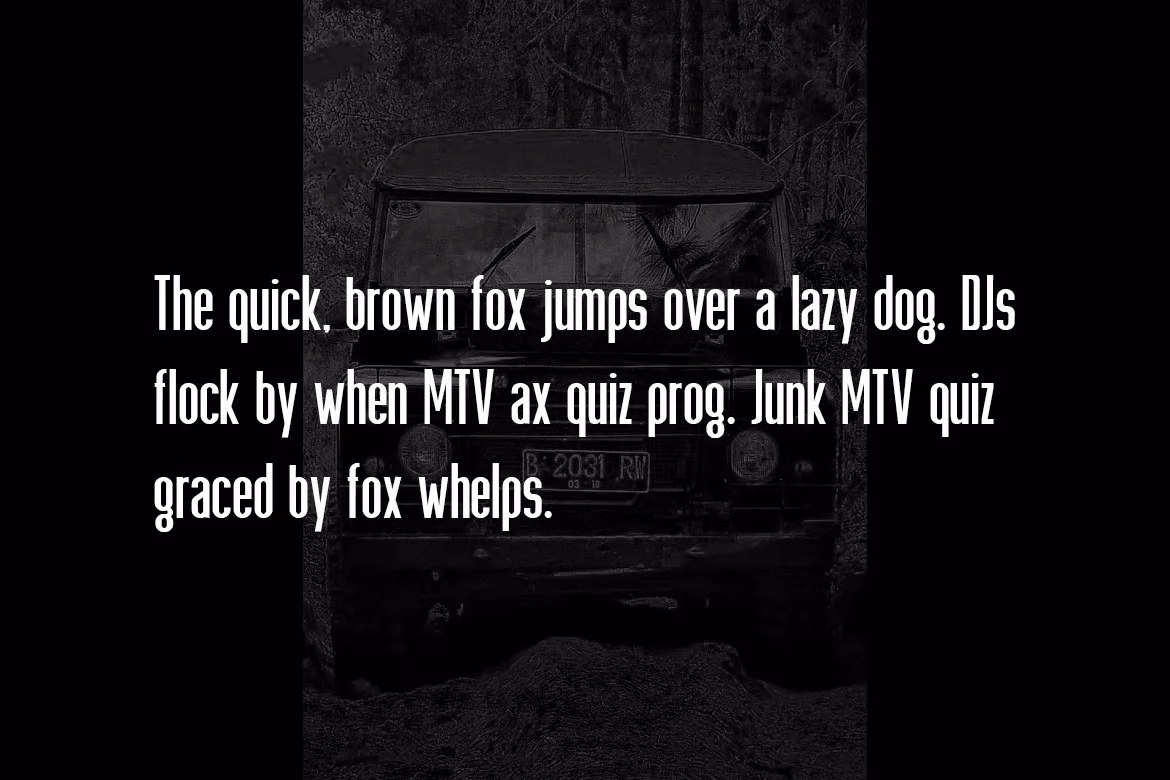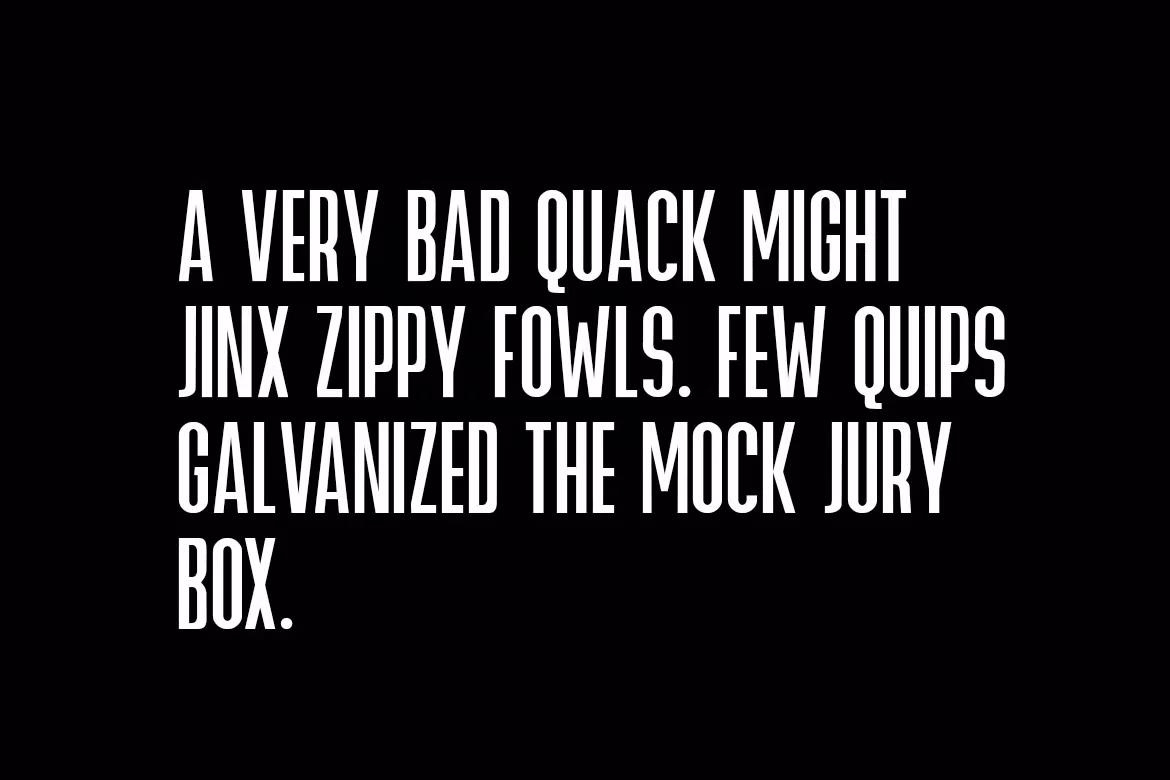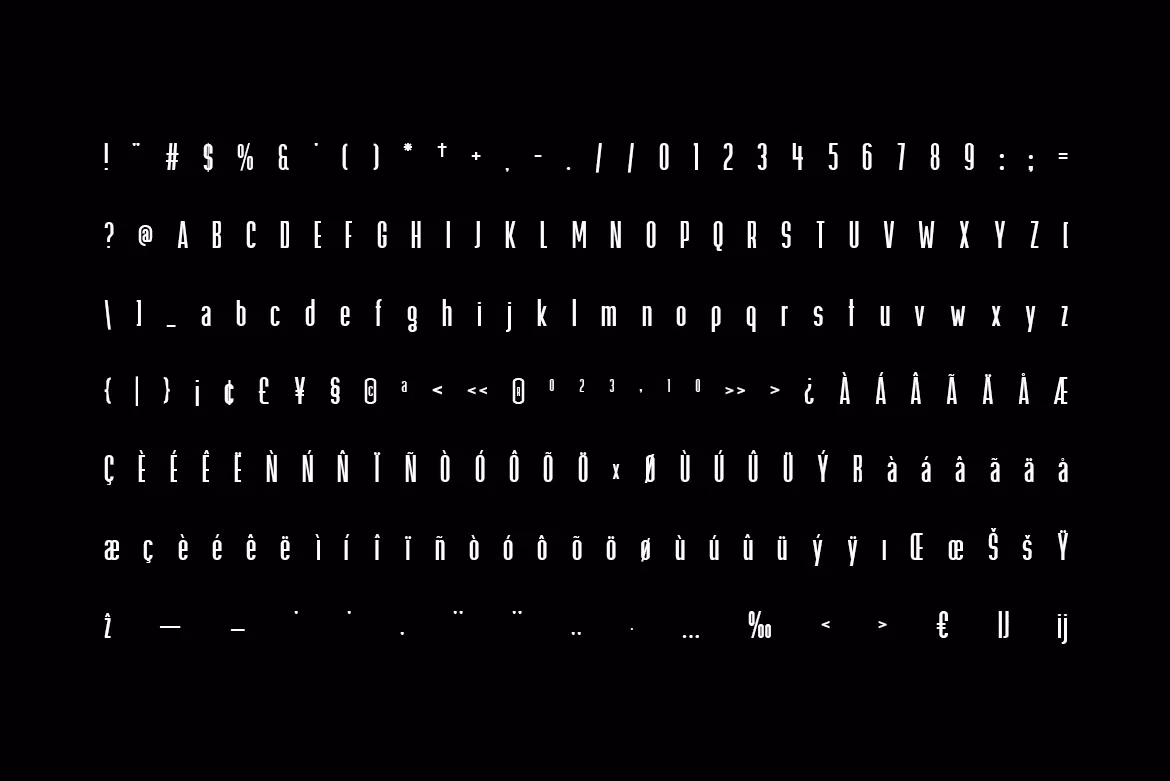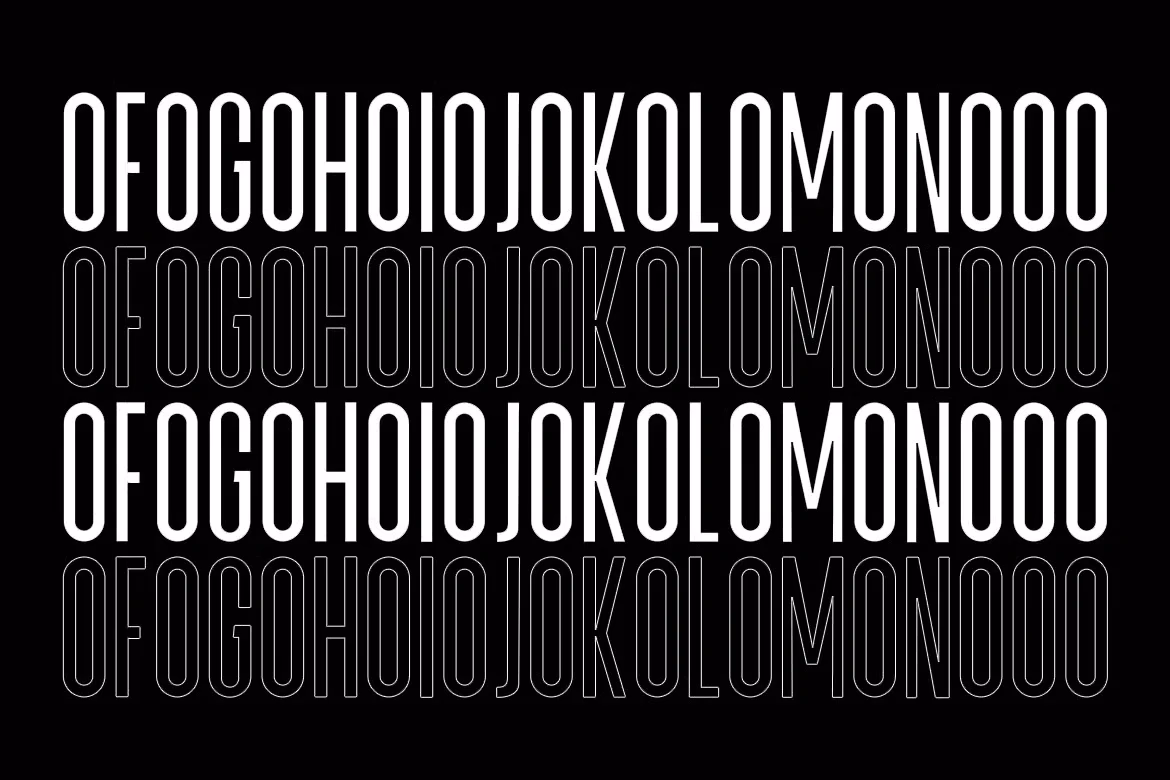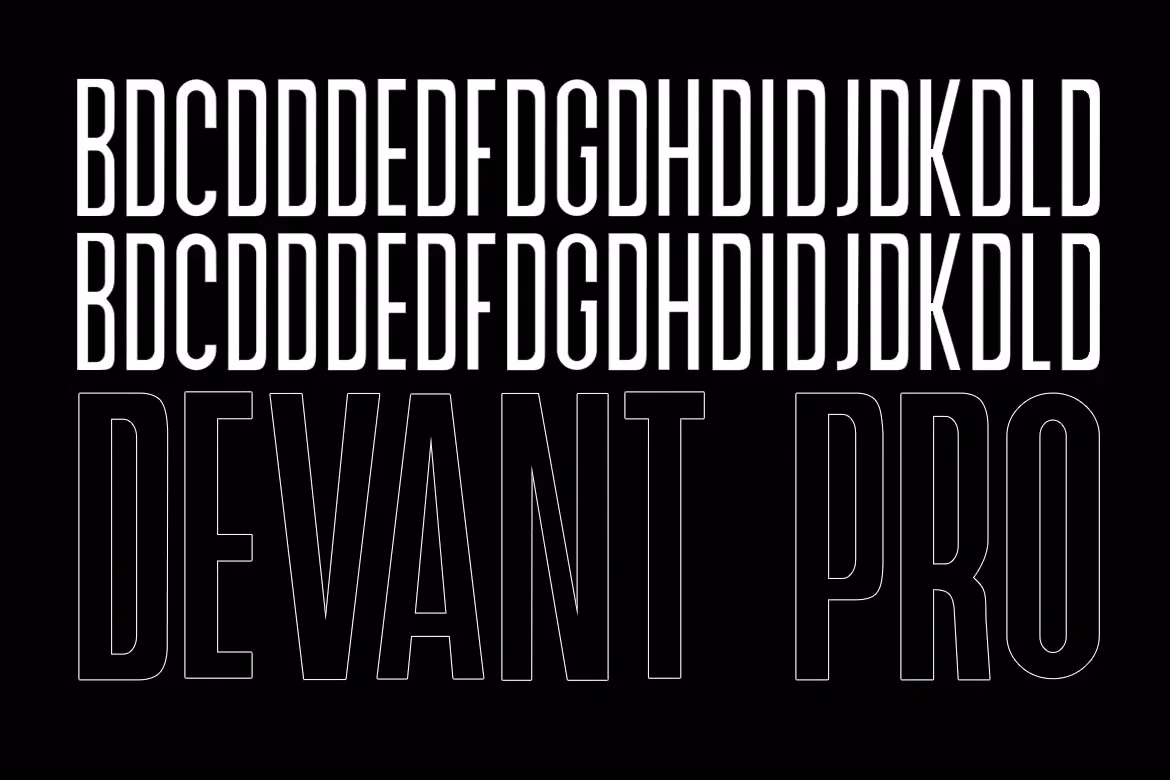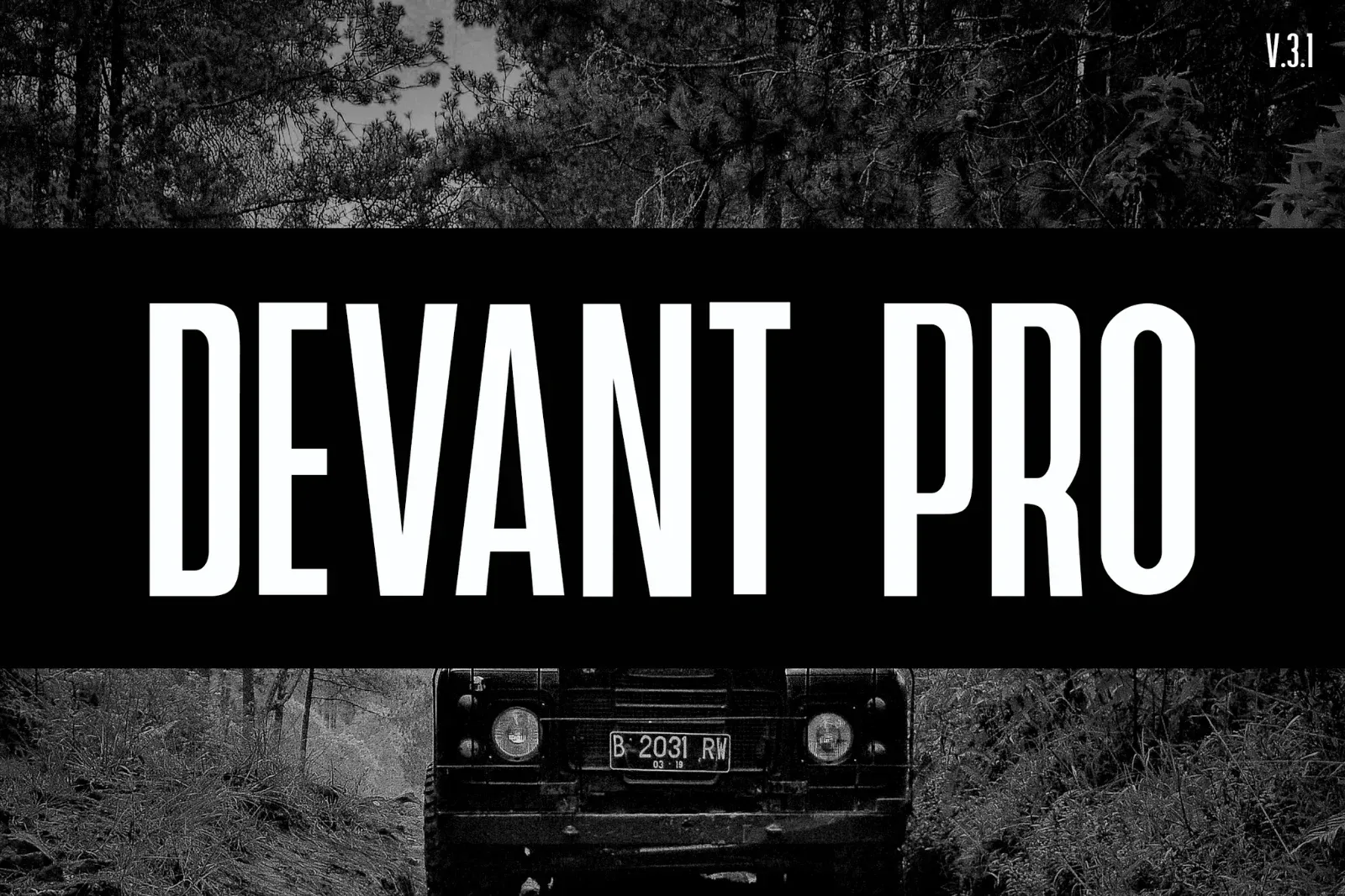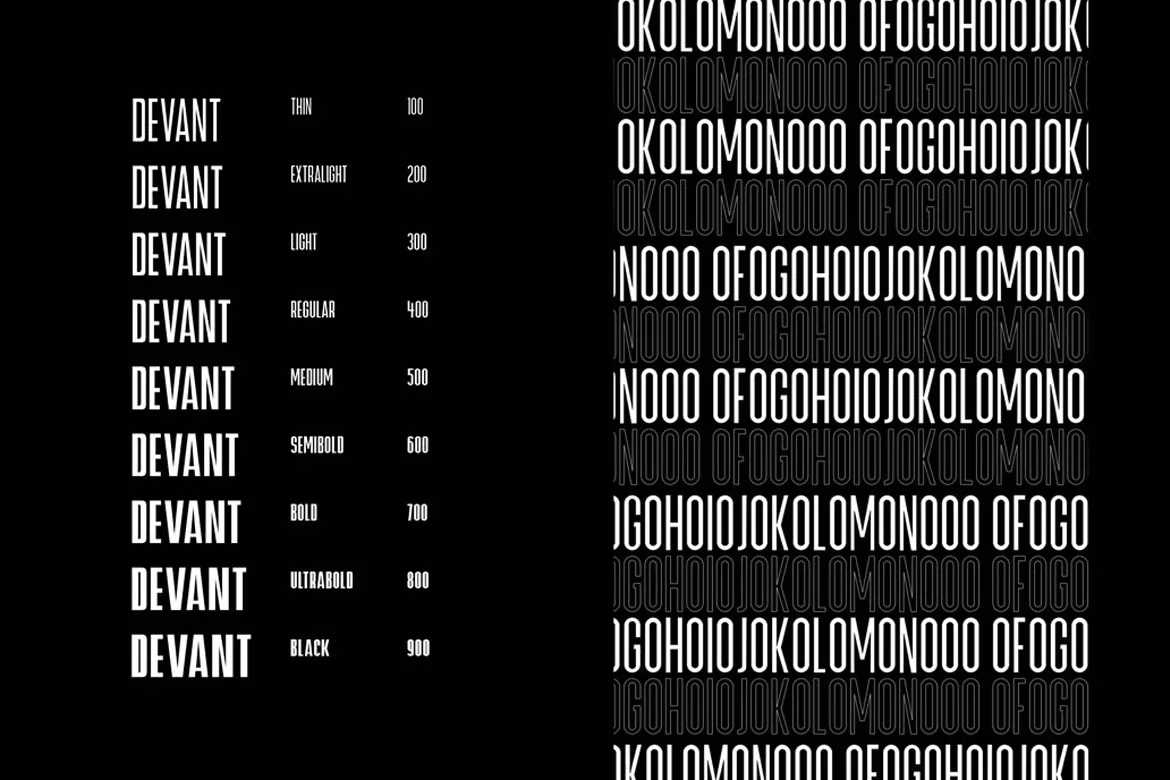
Devant Pro is a captivating display sans-serif font that exudes creativity and modernity. Its distinctive character and clean lines make it an ideal choice for eye-catching banners, engaging landing pages, and dynamic movie titles. The font's excellent legibility and versatility ensure that it stands out in both digital and print mediums, making it a valuable addition to any designer's toolkit.